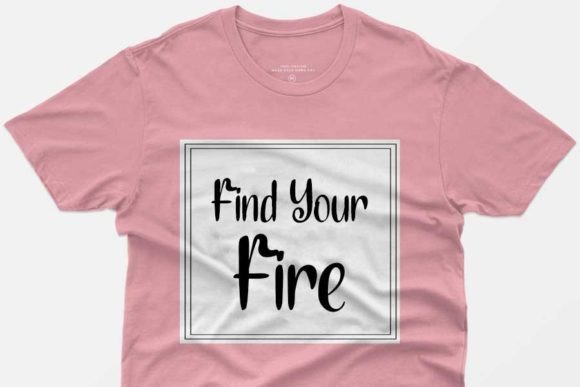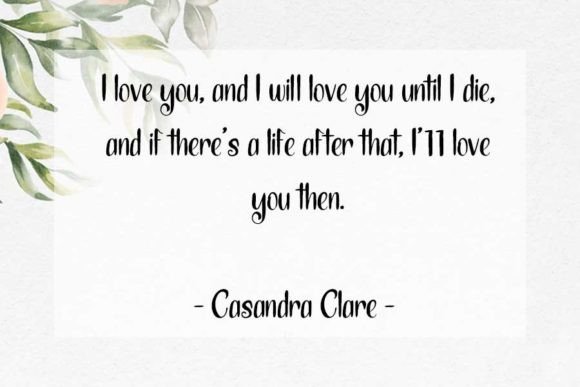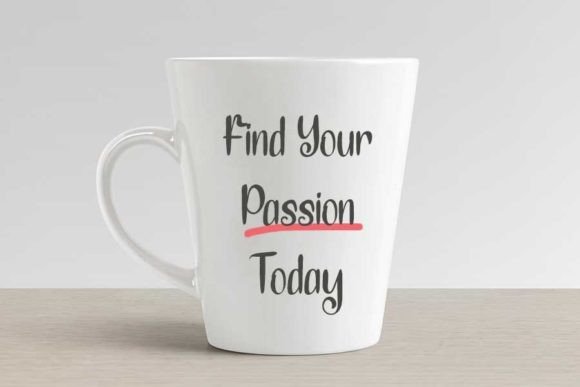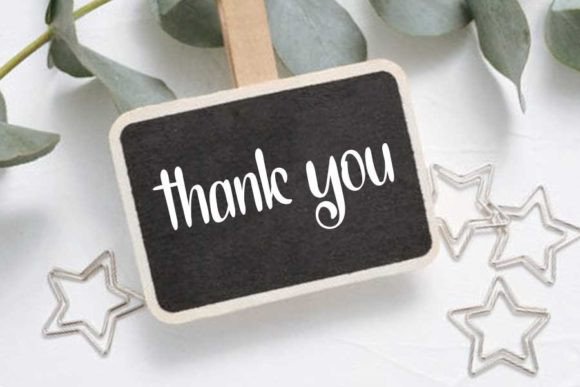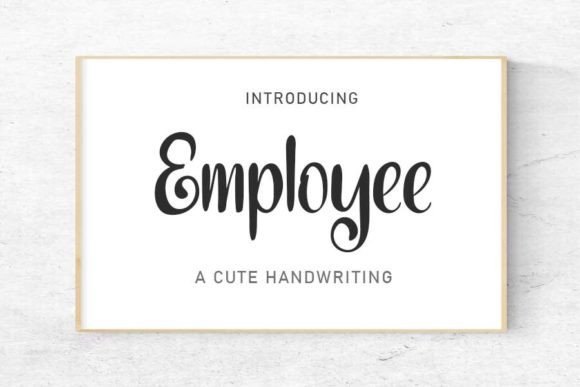
Introducing Employee Font: Elevate Your Designs with Elegance
Are you on the hunt for a font that adds a touch of sophistication and timeless charm to your projects? Look no further than Employee Font, a beautiful, flowing handwritten font that is sure to capture your heart. With its elegant touch and distinct style, Employee Font is the perfect choice for designers and crafters looking to create spectacular designs that stand out from the crowd.
The Characteristics of Employee Font
Employee Font is a carefully crafted handwritten font that boasts an incredibly distinct and timeless style. Its flowing lines and elegant touch make it perfect for a wide range of projects, from wedding invitations and branding materials to social media graphics and more. The font’s unique characteristics include:
- Flowing lines: Employee Font features smooth, flowing lines that give it a natural, handwritten feel.
- Elegant touch: The font’s elegant touch adds a touch of sophistication and refinement to any design.
- Distinct style: Employee Font’s distinct style sets it apart from other fonts, making it perfect for designers looking to create unique and memorable designs.
- Timeless charm: The font’s timeless charm ensures that your designs will remain stylish and relevant for years to come.
Why Choose Employee Font?
So why choose Employee Font for your next project? Here are just a few reasons why this font stands out from the crowd:
- Versatility: Employee Font is versatile and can be used for a wide range of projects, from formal to informal.
- Ease of use: The font is easy to read and works well in both large and small sizes.
- Unique style: Employee Font’s unique style ensures that your designs will stand out from the crowd and leave a lasting impression.
- High-quality: The font is high-quality and carefully crafted to ensure that it looks great in any design.
How to Use Employee Font in Your Designs
Using Employee Font in your designs is easy! Here are a few tips to get you started:
- Pair it with other fonts: Employee Font works well when paired with other fonts, such as sans-serif fonts for a modern look or serif fonts for a more traditional feel.
- Experiment with sizes: Try using Employee Font in different sizes to create visual interest and hierarchy in your designs.
- Use it for headings and titles: Employee Font is perfect for headings and titles, where its elegant touch and flowing lines can really shine.
- Add a personal touch: Use Employee Font to add a personal touch to your designs, such as in a handwritten note or signature.
Employee Font is perfect for designers and crafters looking to add a touch of elegance and sophistication to their projects. Whether you’re working on a branding project, creating social media graphics, or designing invitations and cards, Employee Font is the perfect choice. Its unique style and timeless charm make it a versatile font that can be used for a wide range of projects.
| Font Name | Employee Font |
| Author | Snowman Studio |
In conclusion, Employee Font is a beautiful, flowing handwritten font that is sure to elevate your designs with its elegant touch and distinct style. With its versatility, ease of use, and high-quality design, Employee Font is the perfect choice for designers and crafters looking to create spectacular designs that stand out from the crowd. So why wait? Fall in love with Employee Font and start creating stunning designs today!